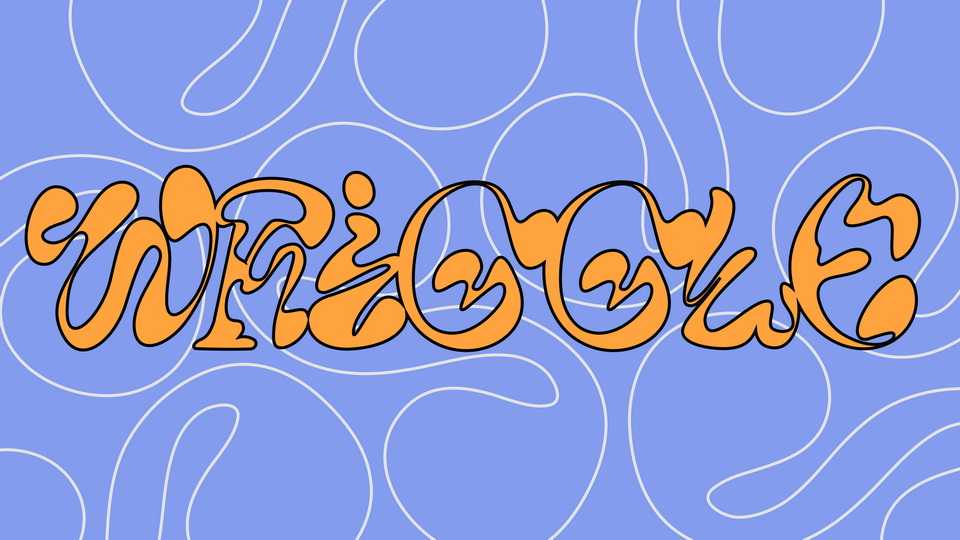
Download Wriggle font, a playful and indefinite experimental display typeface created from the first set of characters from the 36 Days of Type challenge.
Designer: Vani Jain